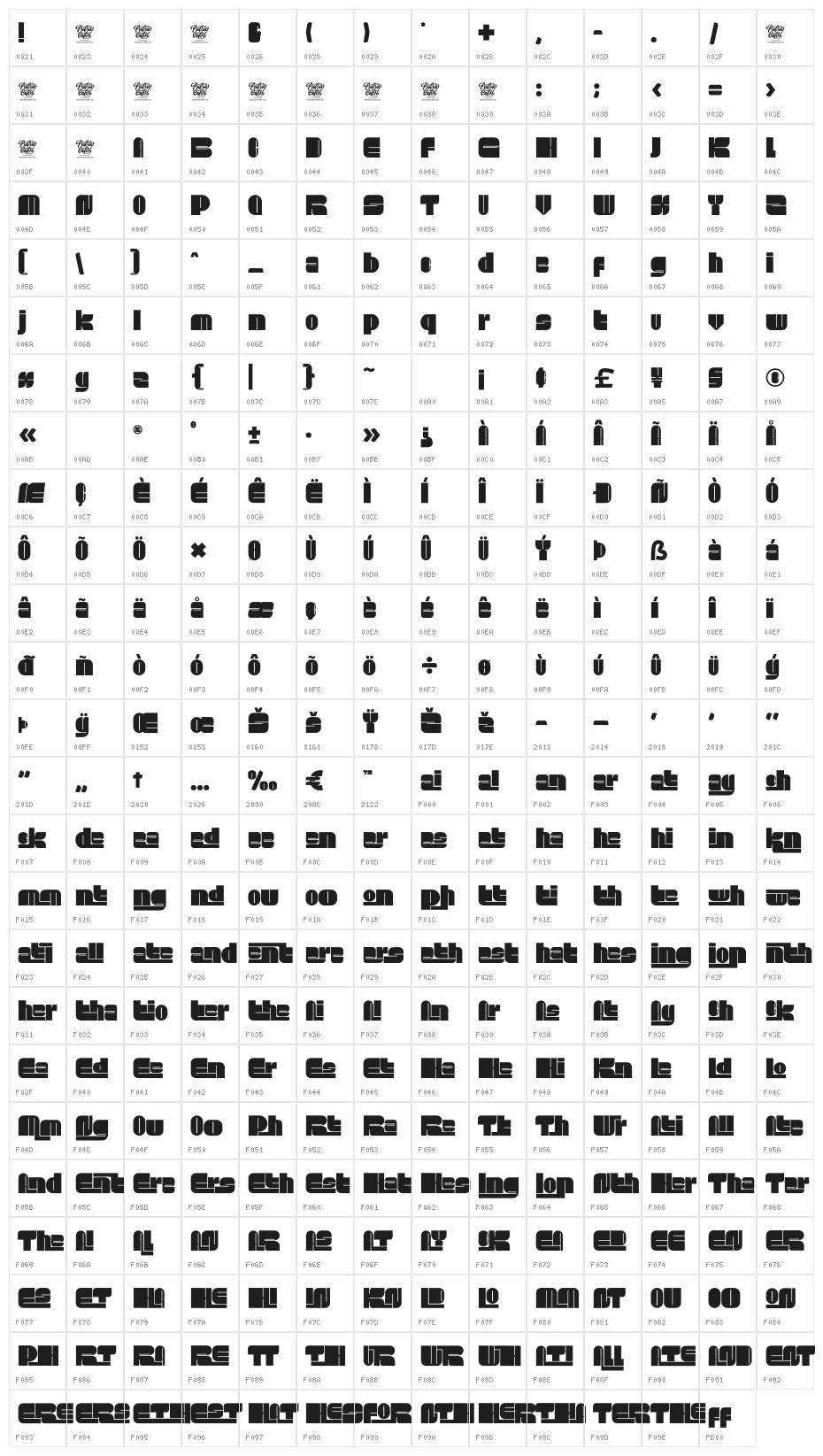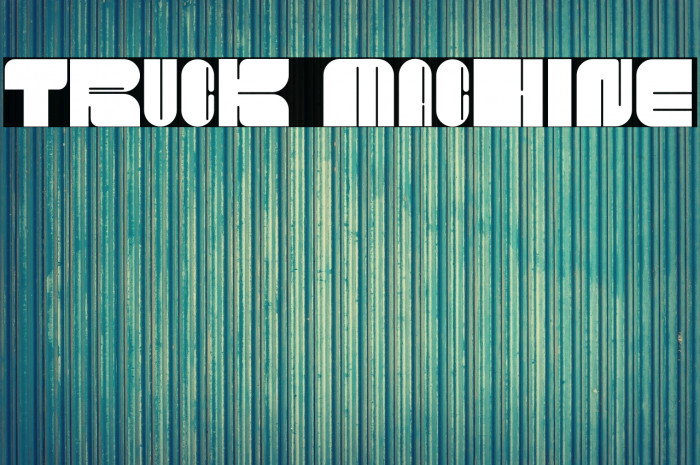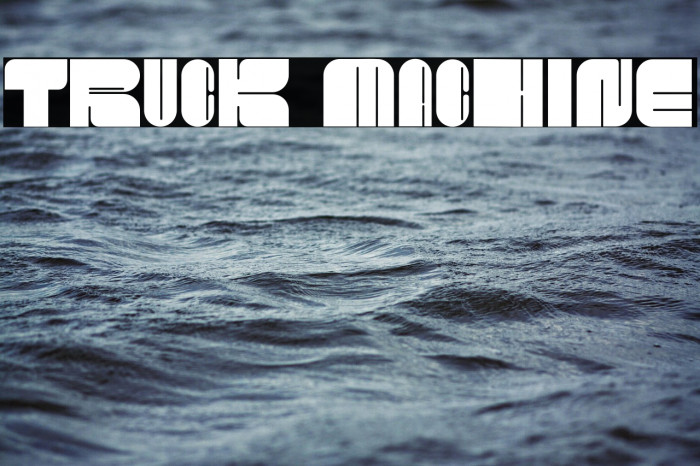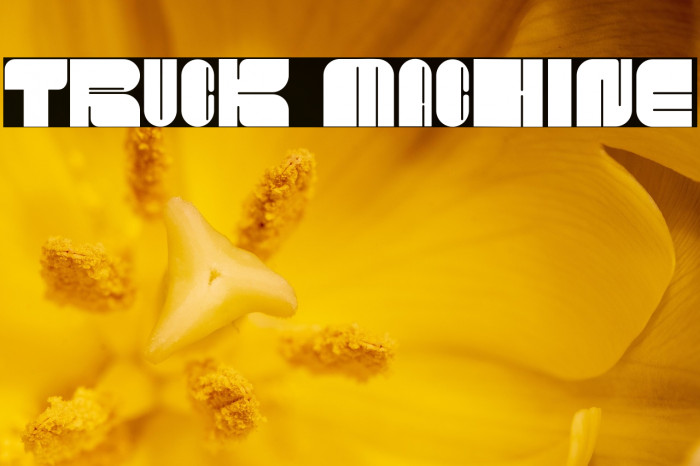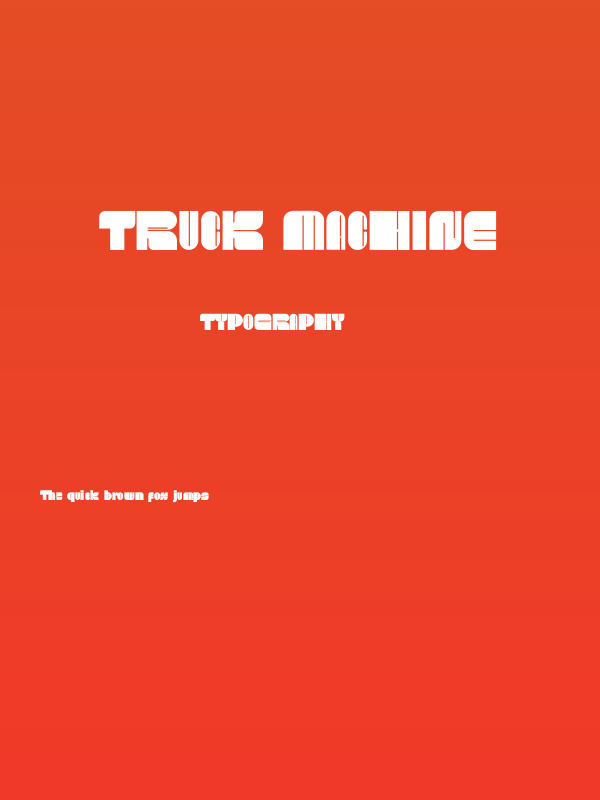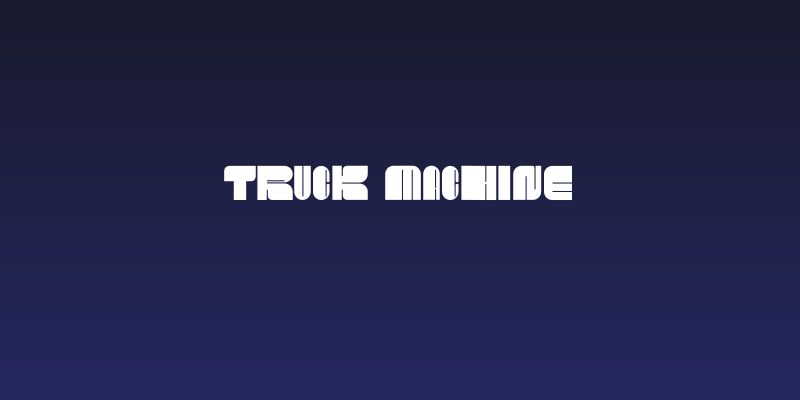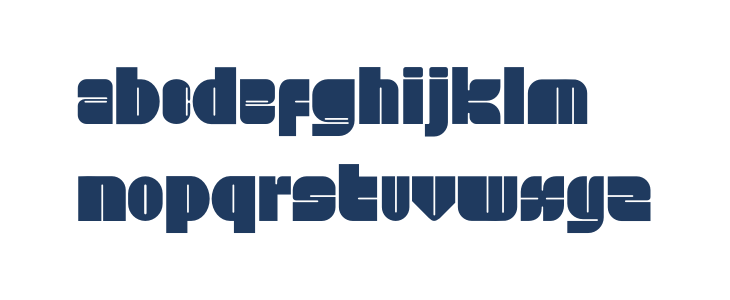
TRUCK MACHINE Font
TRUCK MACHINE Description
This font features a bold, geometric design with a strong industrial feel. The characters are constructed with thick, block-like shapes that convey a sense of strength and stability. The uppercase and lowercase letters maintain a consistent width, creating a uniform appearance. The font includes unique cutouts and angles that add a modern twist to the otherwise solid forms. The numbers and special characters follow the same robust style, ensuring cohesive visual impact across all text. This font's boldness and distinctive style make it ideal for projects that require a strong, commanding presence.
| Overall Style | Modern, Industrial |
| Proposed Projects | Ideal for branding, posters, signage, and any project needing a strong visual impact. |